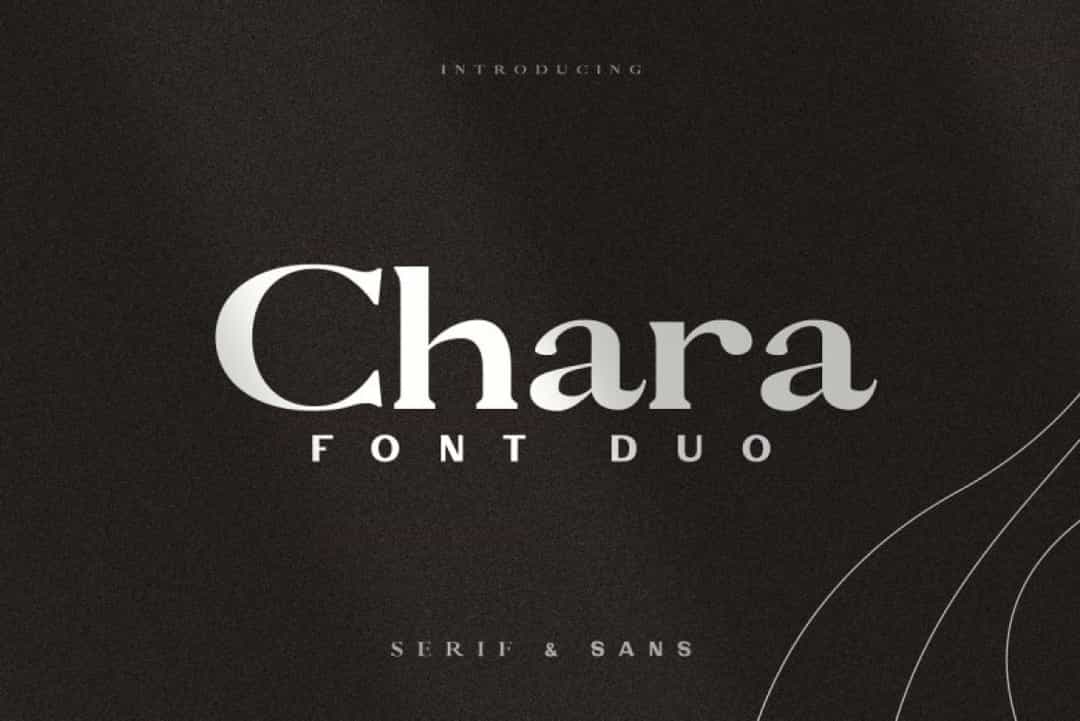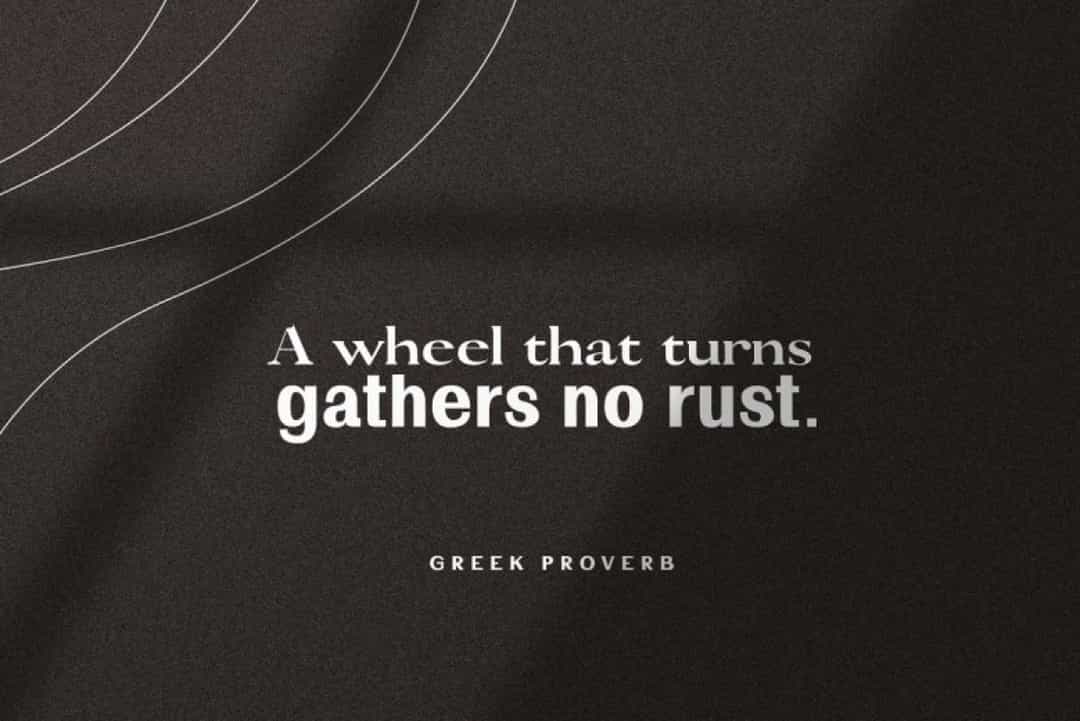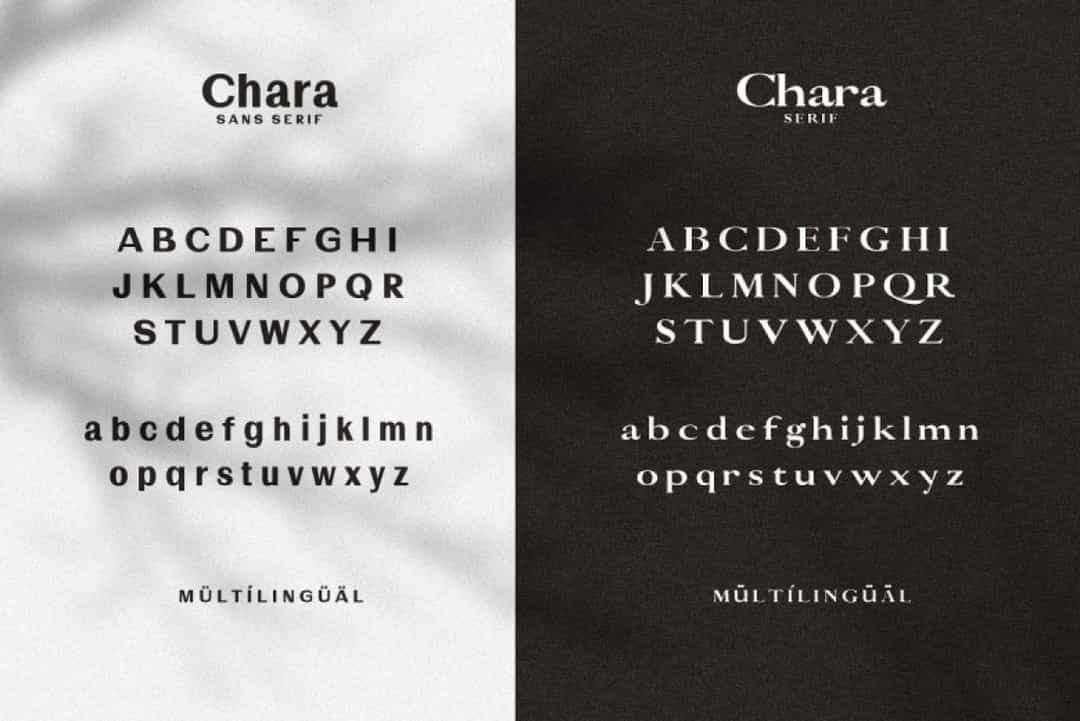
Chara is an exquisite luxury font that merges trendy sans-serif and antique serif typefaces. This font in combines in sizeable display title, logo text and brief paragraphs. Chara Font Duo are perfect for all branding and other marketing purposes.